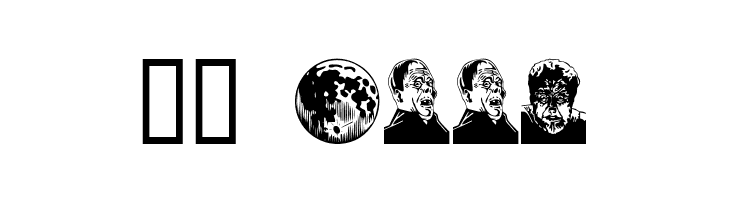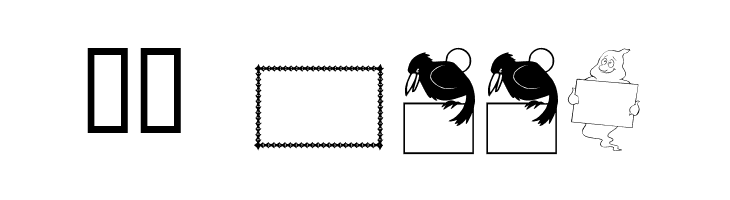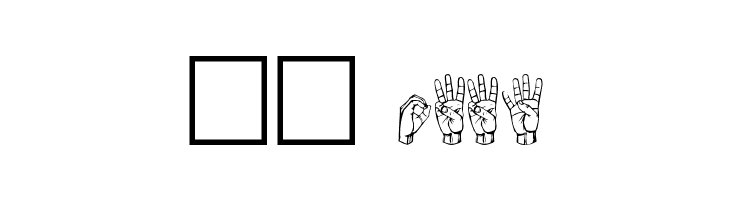
Expressive line-art font with dancing figure illustrations for each character.
( Fonts by David Rakowski )
A visual representation of the American Sign Language alphabet through hand gestures.
( Font by SnatchSoft )
A dingbat font with gravestone and tombstone illustrations.
( Fonts by Klaus Johansen - www.listemageren.dK )
A decorative set of panda-themed illustrations in place of traditional characters.
( Fonts by Alan Carr )
A decorative icon font with food and drink illustrations.
( Fonts by Astigmatic One Eye Typographic Institute - Brian J. Bonislawsky - astigmatic.com )
Expressive illustrated faces form each character in a bold, decorative style.
A decorative set of butterfly illustrations in place of traditional characters.
( Fonts by www.4yeo.com )
Hand-drawn holiday-themed decorative illustrations.
( Fonts by www.4yeo.com )
A bold, geometric display font with garden and nature illustrations.
( Fonts by www.4yeo.com )
Decorative dingbat font with summer and vacation illustrations.
( Fonts by www.empire-of-the-claw.com )
A decorative dingbat font featuring iconic character illustrations.
A collection of playful Halloween-themed illustrations replacing traditional characters.
Halloween-themed dingbat font with spooky illustrations.
( Fonts by Emerald City Fontwerks - Steven J. Lundeen - www.speakeasy.org/~ecf/ )
A bold, boxed decorative font with integrated clock illustrations.